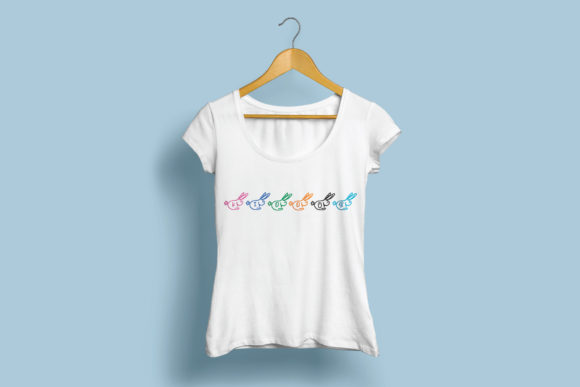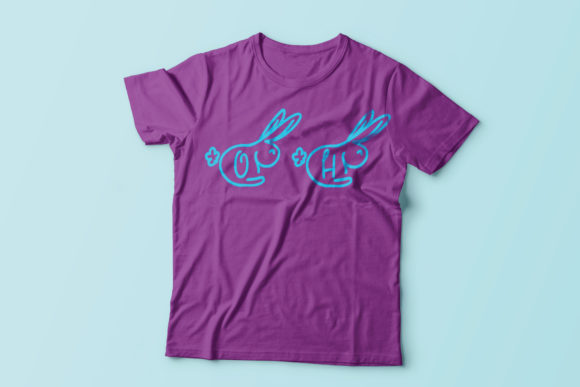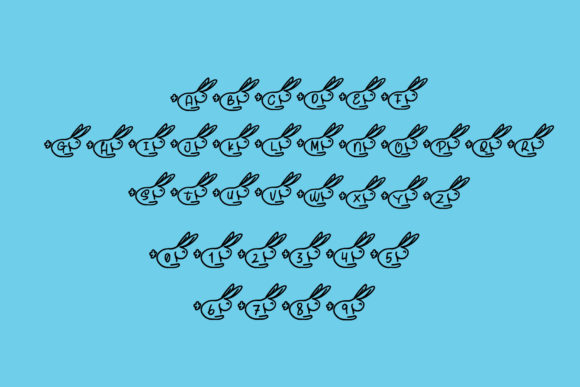
The Bunny Font: A Fresh and Unique Decorative Delight
Have you ever been in the middle of a design project, and suddenly, you just can’t seem to find the right font? I recall a particularly frustrating experience while working on a Easter-themed greeting card project. My client wanted a font that was not only festive but also conveyed a sense of playfulness and whimsy. That’s when I stumbled upon the Bunny Font, and let me tell you, it was love at first sight! 🐰
A Personal Review of Bunny Font
As a designer, I’m always on the lookout for fonts that can bring a fresh perspective to my projects. Here’s what I love about Bunny Font:
- ✨ Friendly and approachable feel, perfect for holiday-themed projects
- ✅ Unique and decorative, adding a touch of whimsy to any design
- 🌸 Fresh and modern, yet still manages to evoke a sense of nostalgia
- 👧 Ideal for crafting projects that require a cute, childish touch
Of course, no font is perfect, and Bunny Font does have a few quirks:
- 🤔 Some letters may appear a bit condensed, which can affect readability at smaller font sizes
- ⚠️ Limited availability of stylistic alternates, which may limit design flexibility
One of the exciting features of Bunny Font is its OpenType features and glyphs. These allow you to add an extra layer of creativity to your designs:
- Use stylistic alternates to create a more playful or whimsical feel
- Experiment with ligatures and other typographic features to add visual interest
The Story Behind Bunny Font
Bunny Font was designed with one goal in mind: to create a friendly and approachable font that’s perfect for holiday-themed projects. The designer, inspired by the playful and whimsical world of Easter bunnies, crafted a font that’s both fresh and unique. The result is a font that’s equal parts modern and nostalgic.